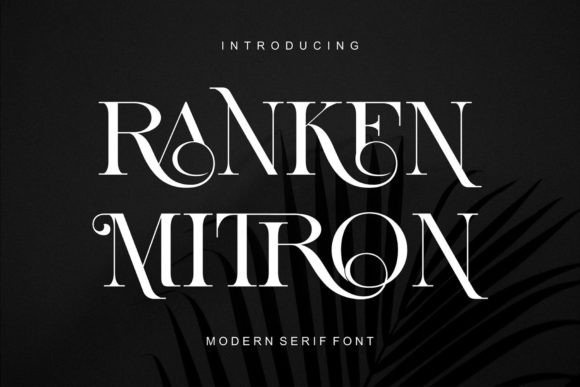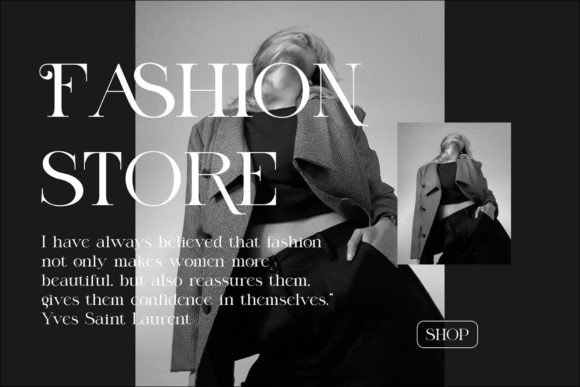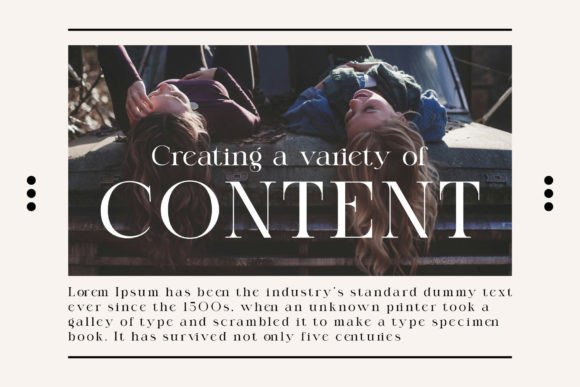
Ranken Mitron Font
About the Ranken Mitron Font
Elevate your designs with Ranken Mitron Font, a font that combines sophistication with readability. **RANKEN** Modern Ligature Serif Typeface inspired by the famous minimalist logo perfect for the purposes of designing templates, brochures, videos, advertising branding, logos, invitations, layout design, elegant crafting, beauty design, and others.
Ranken Mitron excels in headline applications, short-form text within logos and branding materials, and elegant invitations. Its ligatures add a sophisticated touch to titles and short impactful statements. However, its refined serifs and ligature features make it less suitable for body text or UI elements requiring high readability in longer passages.
The font projects a modern and elegant personality, ideal for brands seeking a sophisticated yet approachable image. Consider pairing it with a clean sans-serif like Open Sans for body copy or a geometric sans-serif like Futura for a more contemporary feel. For a touch of contrast, a delicate script font could complement its refined style in specific applications like wedding invitations.
Its minimalist inspiration makes it versatile; however, avoid using it for playful or informal projects where a bolder or more unconventional typeface might be more appropriate.
Ranken Mitron Font Usage Examples
Ranken Mitron Font Example